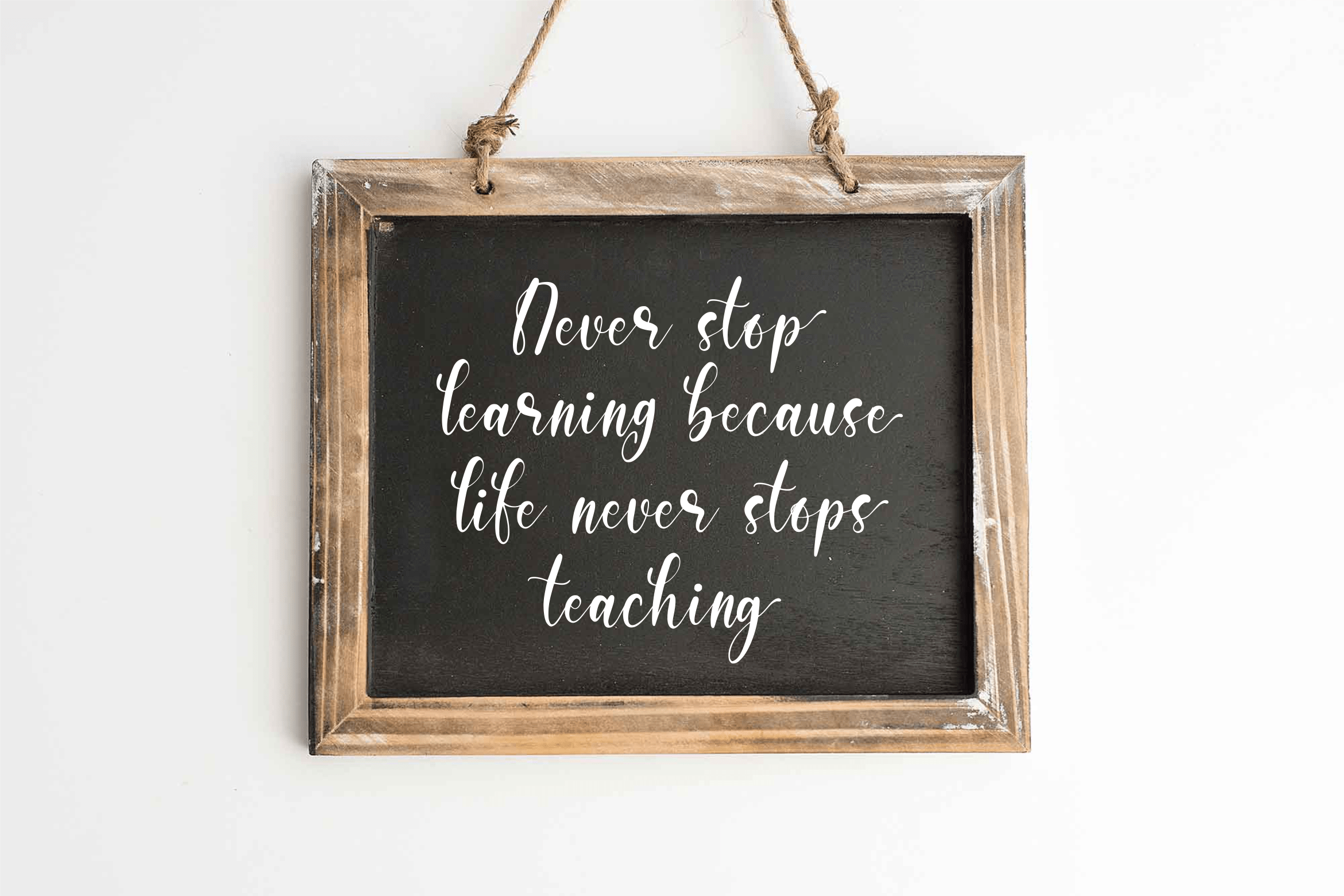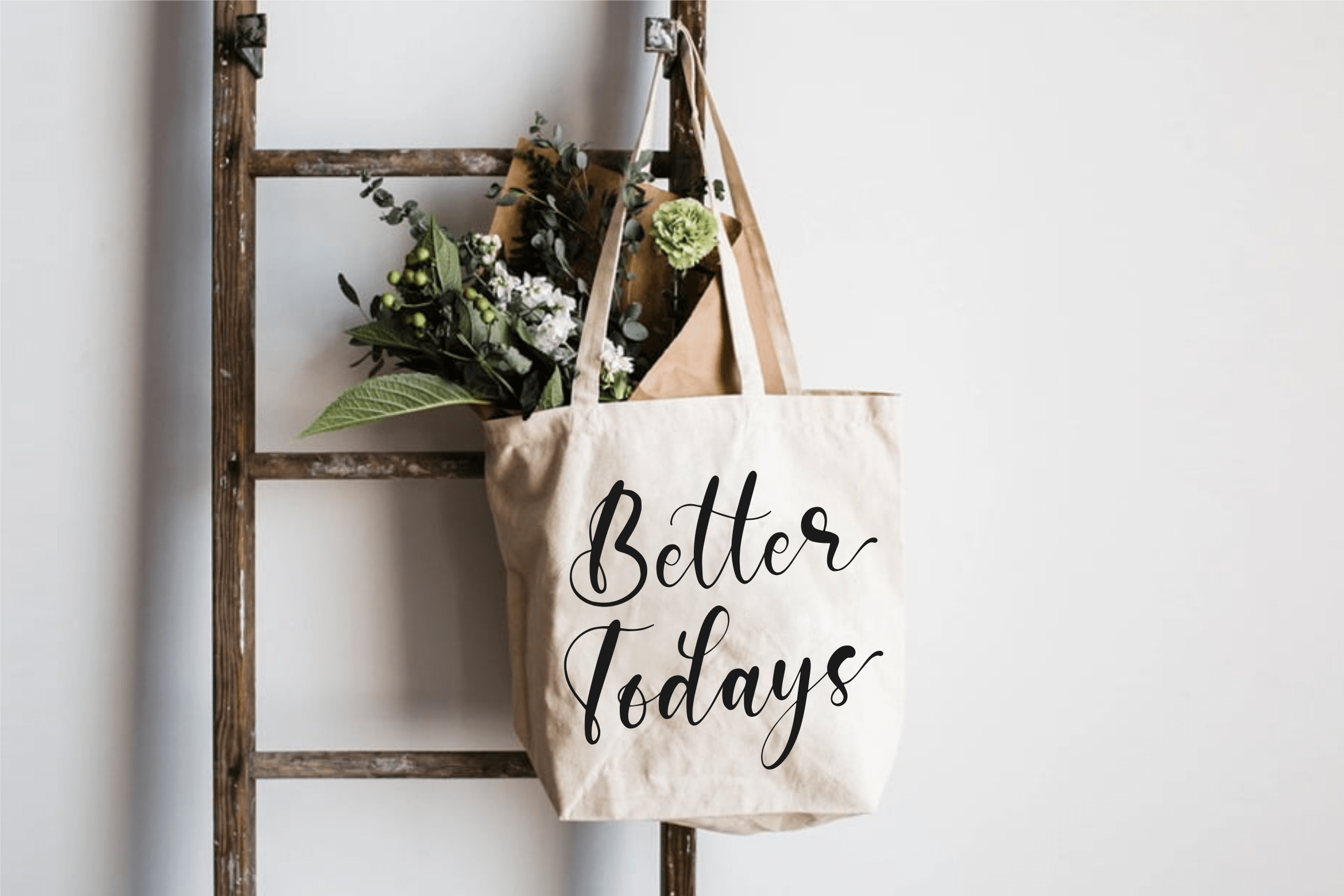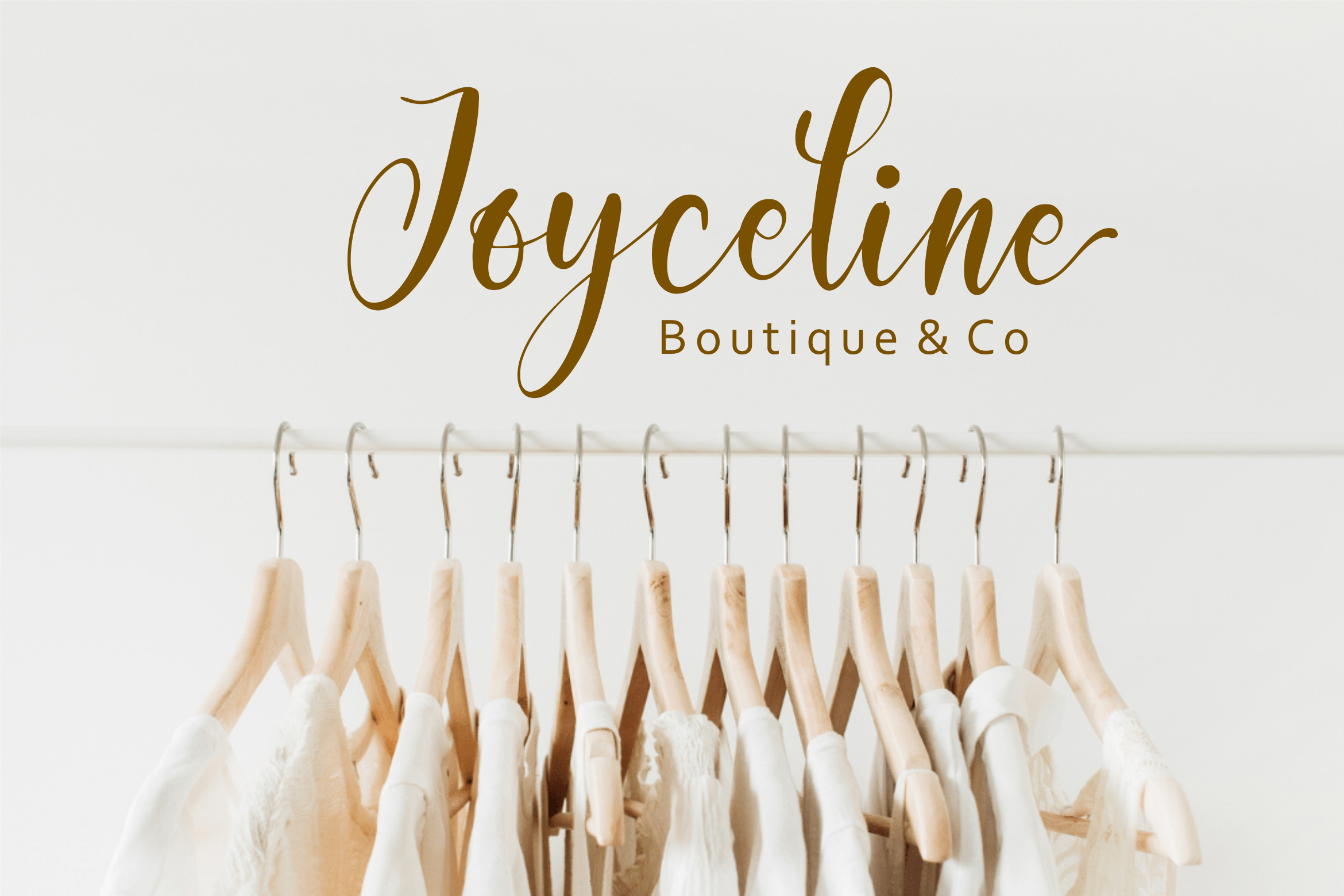
Silkyhearts Script Font
This is a Modern Handwritten Font. Silkyhearts is perfect for product packaging, branding project, megazine, social media, wedding, or just used to express words above the background.